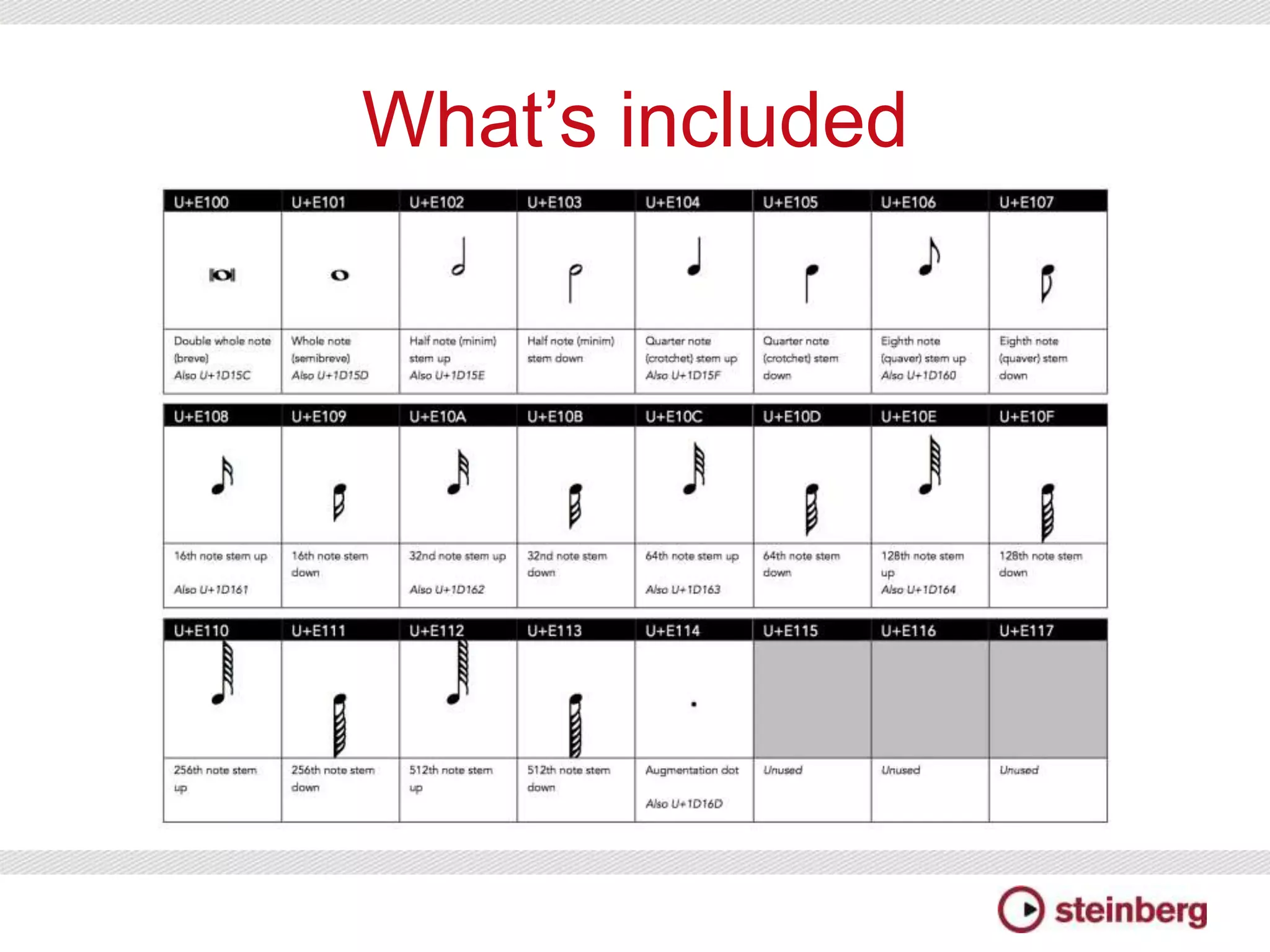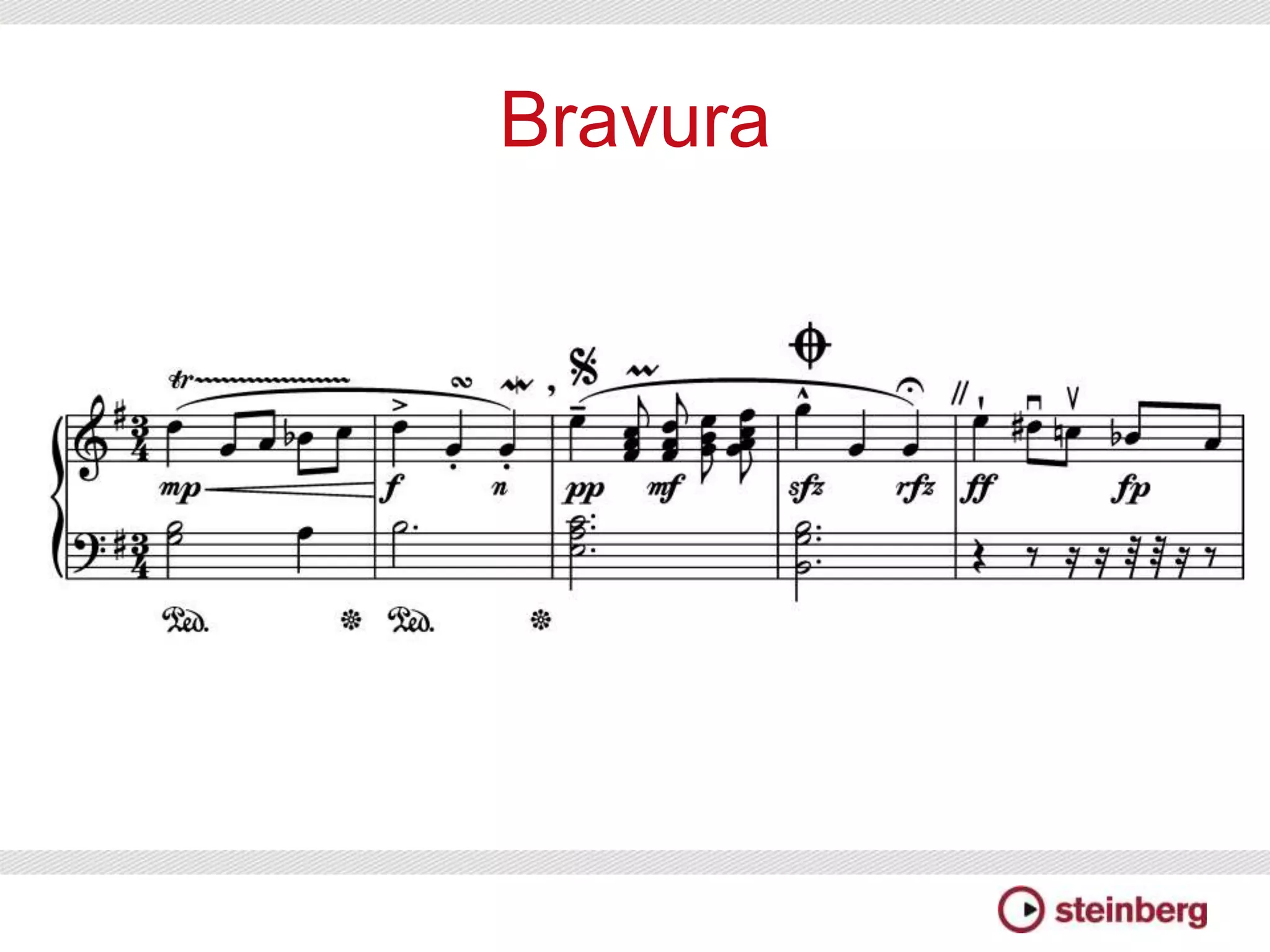
A brief history of music fonts
• First commercial music font was Sonata from Adobe in
1985
• Features 176 glyphs
• Organised mnemonically on a Latin keyboard (e.g. q =
quarter note)
• Became de facto standard for mapping of music fonts
• Most music fonts since have used largely Sonata-
compatible layouts, e.g. Petrucci (Finale, 1988), Opus
(Sibelius, 1993)
A brief history of music fonts
• Perry Roland proposed range of musical
symbols for Unicode in 1998
• Range was approved, with 220 glyphs
• To date, no font has completely implemented
the range
• Only commercial font with a partial
implementation is Adobe Sonata Std,
OpenType update to original Sonata font
Problems to be solved
• Sonata’s 170 glyphs are insufficient for the
breadth of symbols used in CMN
• No agreement on how to expand beyond
Sonata’s initial set, hence rapid
divergence…
Sonata: a standard?
Sonata, compared with Opus and Petrucci (all agree; S & P agree; O & P agree)
Problems to be solved
• Existing Unicode Musical Symbols range
is also insufficiently broad
• Some scoring applications cannot in any
case access code points beyond Unicode
Plane 0
• Lack of a real standard makes sharing
music fonts between applications difficult
So… what is SMuFL?
• A standard way of mapping musical
symbols to the Private Use Area of the
Basic Multilingual Plane in Unicode
• A set of technical guidelines for how music
fonts should be built
Goals
• Extensible
Provide a framework that makes it
convenient for additional characters to be
added
• Build a community
Draw on scholarly expertise to minimise
errors and omissions
Goals
• Open license
Remove any impediments to font
developers and application vendors
adopting SMuFL
• Practical and useful
Designed with real-world use in mind
Non-goals
• Not currently targeting ratification by the Unicode
Consortium
– What to do with the existing Musical Symbols range?
– Some characters are duplicated from other ranges for
convenience; unlikely to be accepted by the
Consortium
• Not targeting use in text-based applications
– Although many characters could be usefully used, it’s
impractical for end users to type characters from the
PUA anyway
What’s included
• 59 discrete sub-ranges of symbols
• 808 symbols and counting!
• Includes all 220 glyphs from the Unicode
Musical Symbols range
• Room for expansion by leaving empty
code points between ranges
Methodology
• Started with Unicode Musical Symbols range
• Reviewed existing fonts (Sonata, Opus, Petrucci,
Emmentaler, etc.) and categorised additional sub-ranges and
symbols
• Reviewed the standard music notation texts (Gould, Read,
Stone, etc.)
• Reviewed specialist literature (e.g. Ghent conference for
percussion, Salzedo for harp, handbells, accordion, function
symbols, etc.)
• Shared proposals with small group of expert music engravers
and editors
versions, sell, etc.
• ...but we hope to build a community
focused around contributing to
development of SMuFL rather than to see
efforts splinter
18.
Next steps
• Establish a governance model to manage
proposed changes and additions
• Fill any identified gaps
• Define mappings for common music fonts to
SMuFL to determine coverage in existing
fonts
• Encourage the development of further
SMuFL-compliant fonts
Bravura
• The first SMuFL-compliant font
• Includes all SMuFL characters, and (almost) all
Unicode Musical Symbols characters